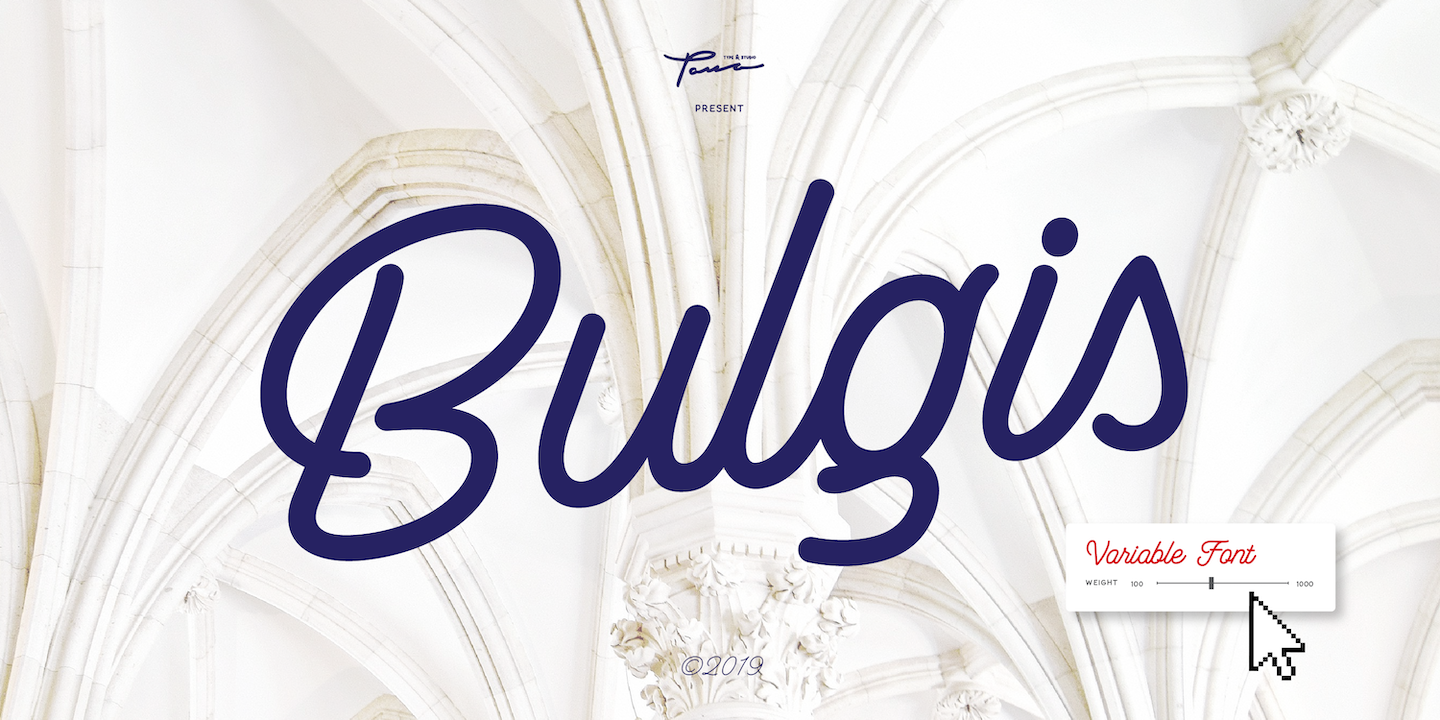
This bold typeface is perfect for fitness centers, protein supplement brands, bodybuilding equipment, sports nutrition packaging, muscle-building programs, strength training gyms, athletic performance brands, energy drink campaigns, weightlifting competitions, power sports events, masculine grooming products, and high-intensity workout programs. The font's muscular design makes it ideal for projects that emphasize strength, power, and the relentless pursuit of physical excellence and athletic dominance.
Bulgis Font is exciting because it embodies raw physical power and muscular strength through its robust letterforms and athletic character structure. The font's thick strokes and powerful proportions create an atmosphere of intensity, determination, and unstoppable force, making it perfect for brands that want to convey strength, endurance, and the commitment to pushing physical limits. Its commanding presence ensures instant impact while maintaining excellent readability across various fitness applications.
The Bulgis Font family includes multiple strength variations: Light Warm-up, Regular Workout, Medium Training, Bold Power, and Black Maximum weights, each available in standard and condensed versions. Special athletic editions feature muscle-inspired alternates, strength symbols, and power ornaments that enhance the font's fitness appeal, providing designers with comprehensive tools for creating authentic strength-focused communications.
Unleash unstoppable power with Bulgis Font Free Download – a typeface that represents ultimate physical strength and athletic determination. Whether you're developing fitness branding, sports nutrition marketing, or strength training materials, this font delivers the muscular presence and powerful impact your projects need while ensuring exceptional performance and commanding strength across all fitness and athletic applications.